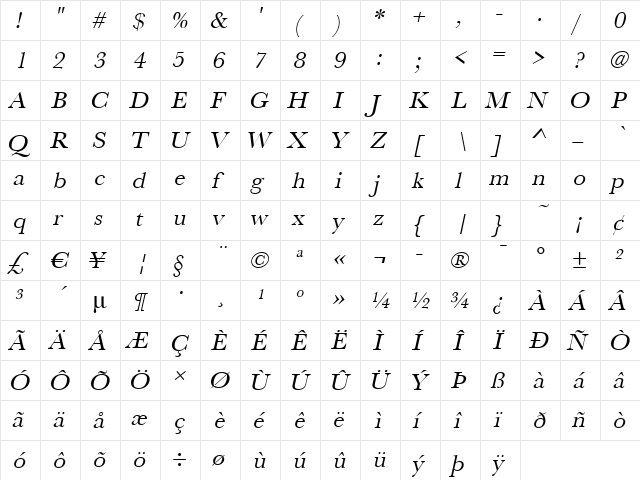
RoxanneBeckerWide Italic Font Preview
RoxanneBeckerWide Italic
Design Context for RoxanneBeckerWide Typeface
RoxanneBeckerWide takes a measured approach to typography — its balanced proportions and neutral character make it a reliable workhorse for both digital and print work. The slanted form adds forward momentum and visual energy.
Pro Tip: Use RoxanneBeckerWide for emphasis, pull quotes, and subheadings where its slanted energy can add rhythm to the layout.